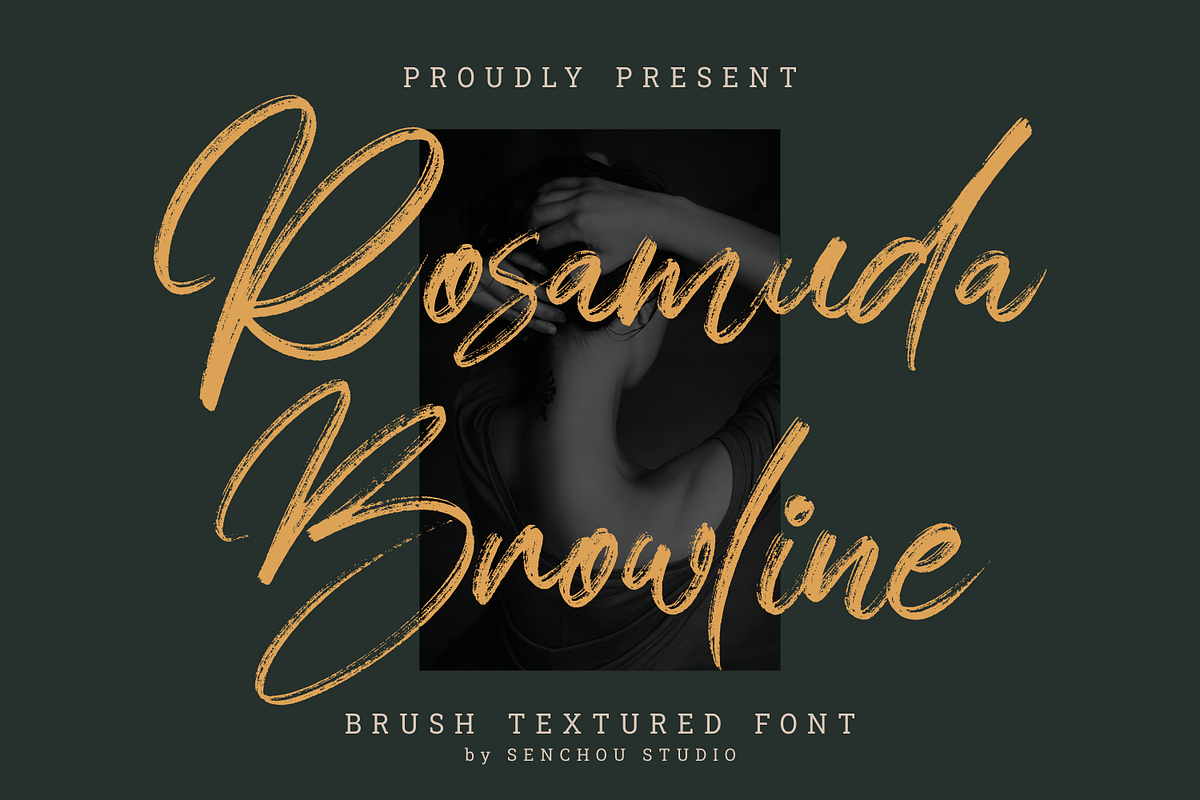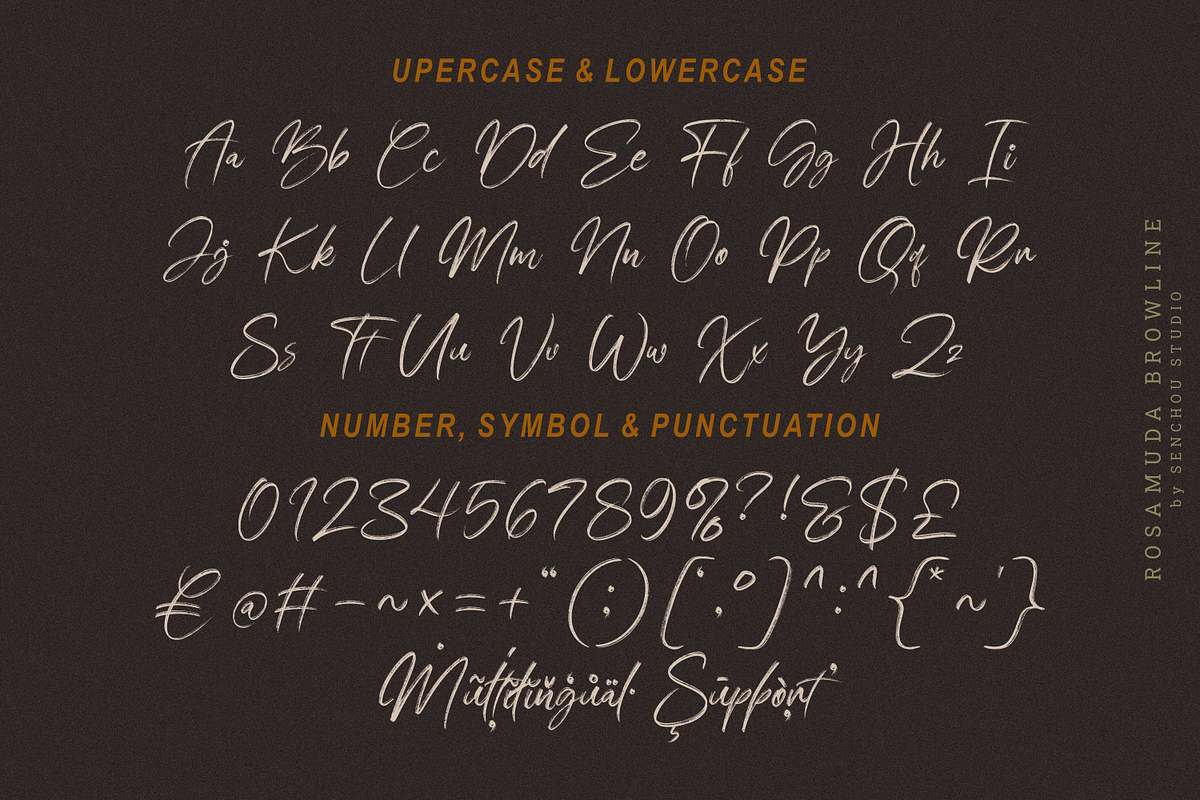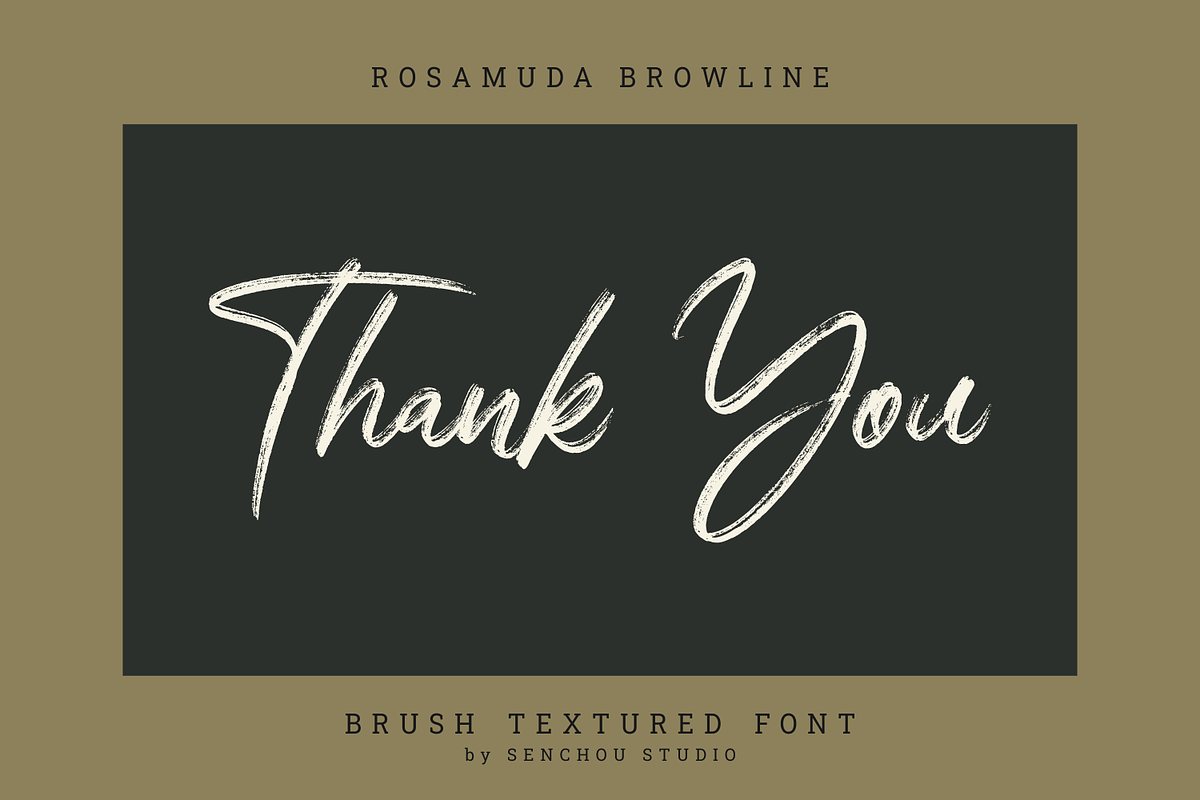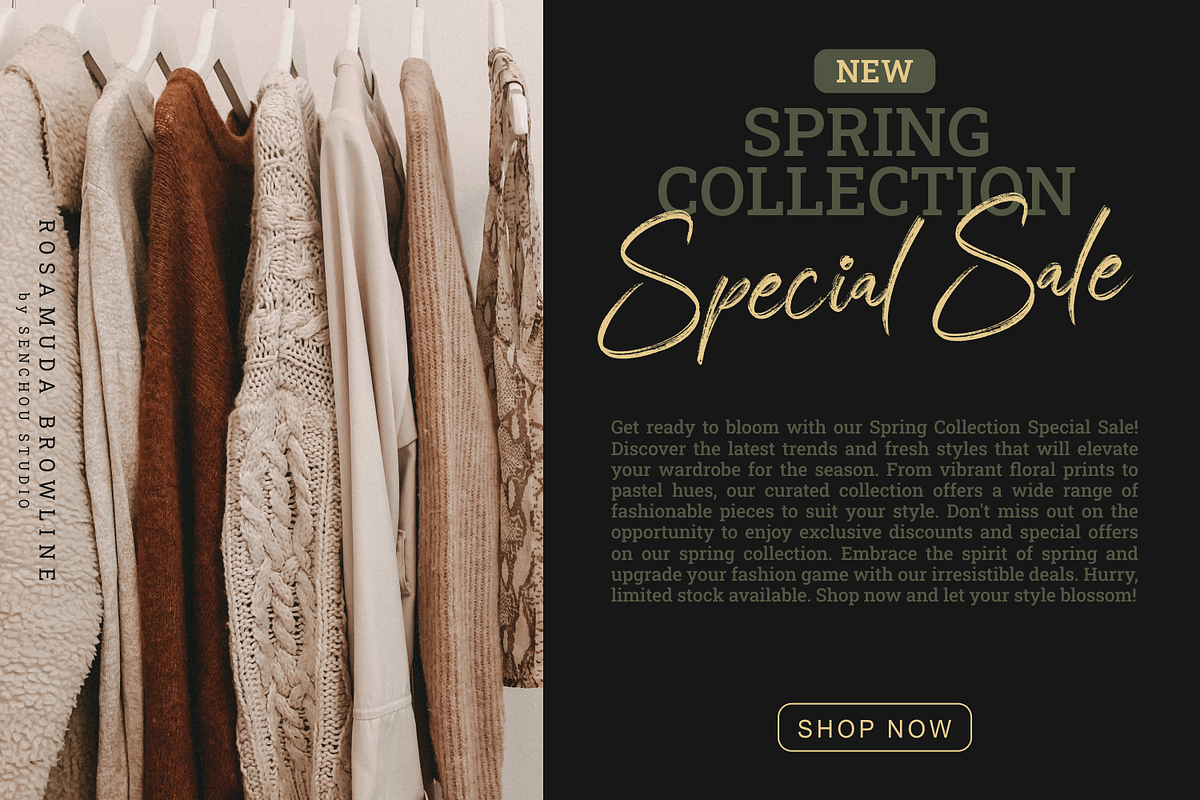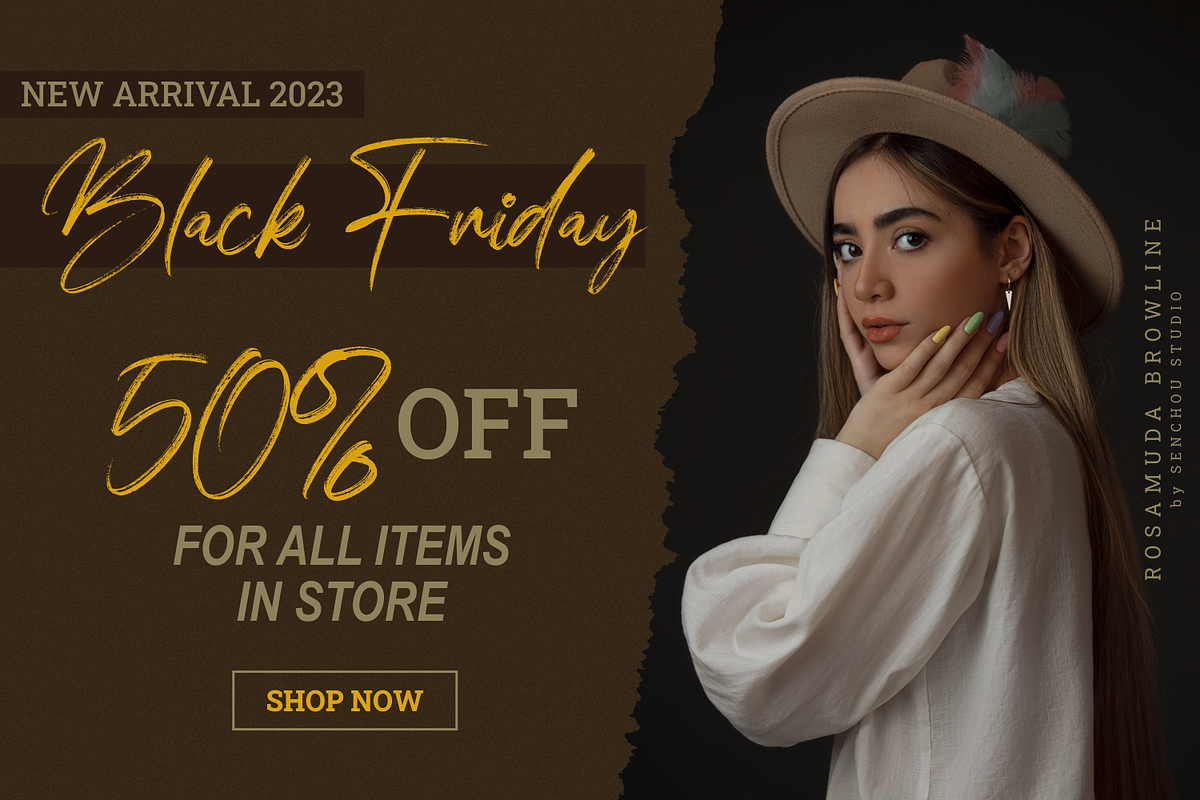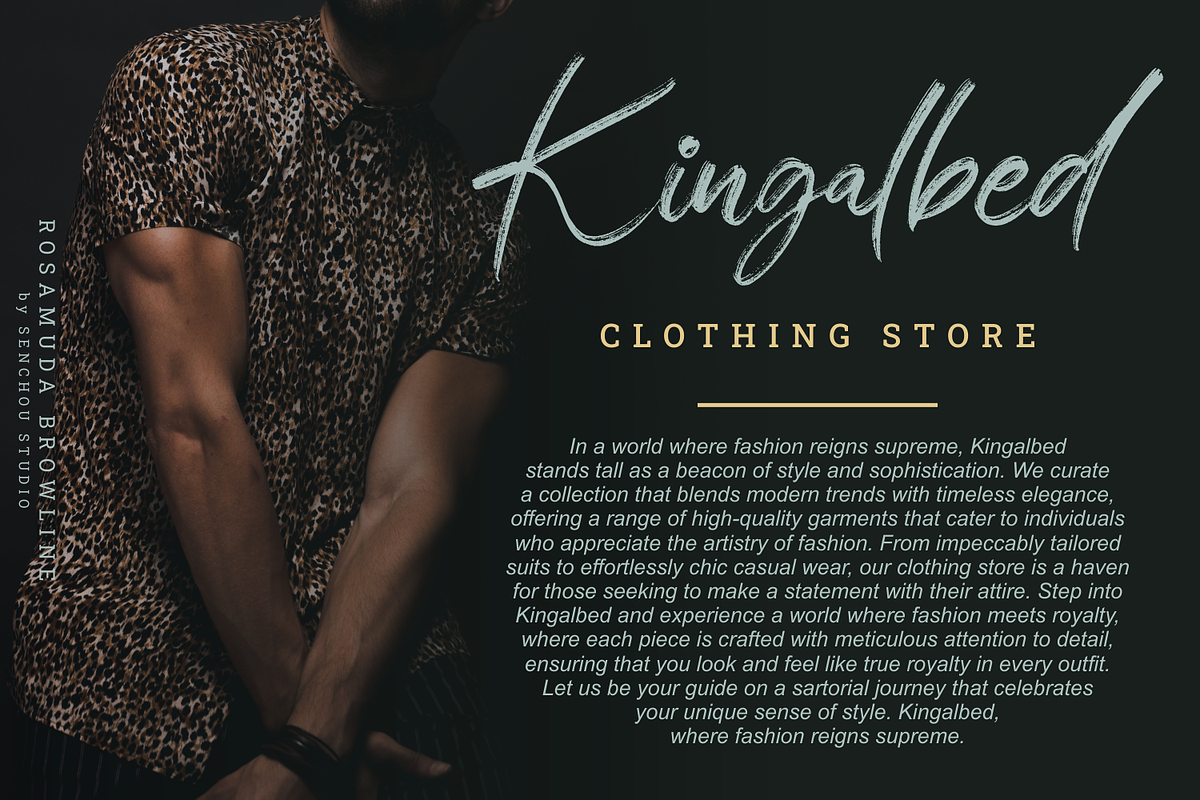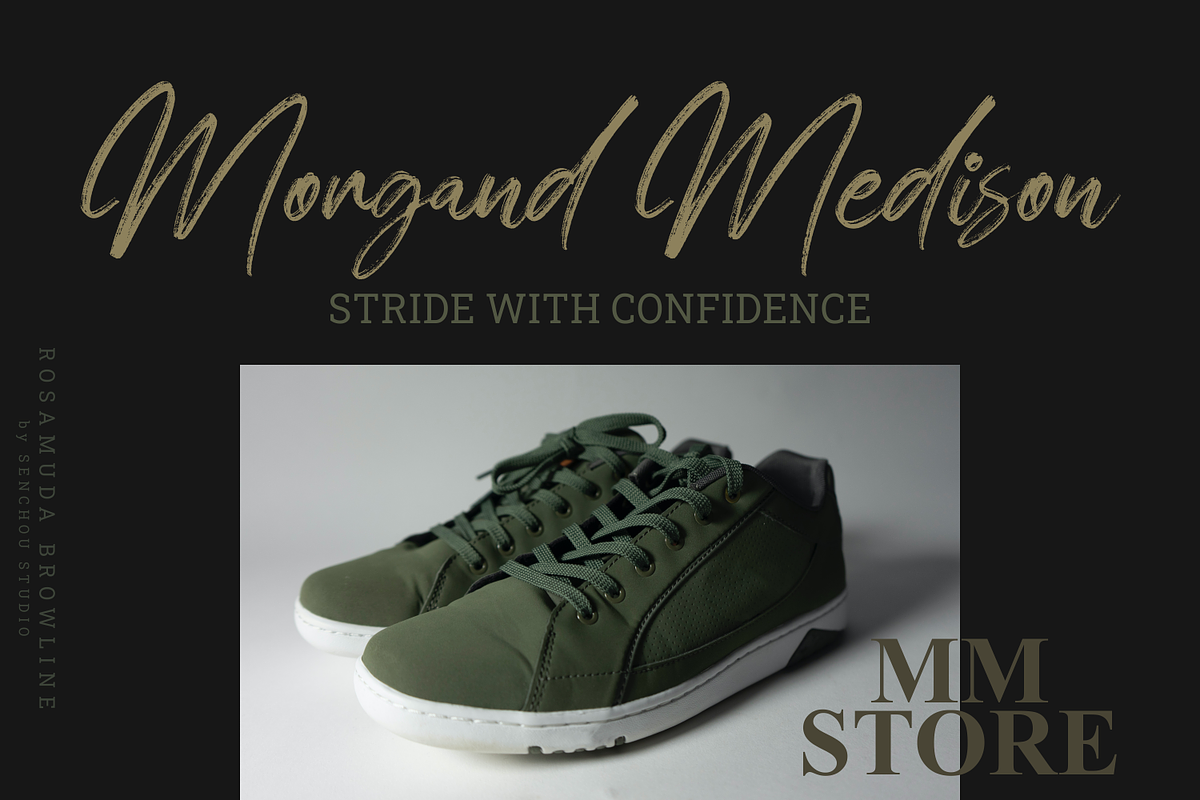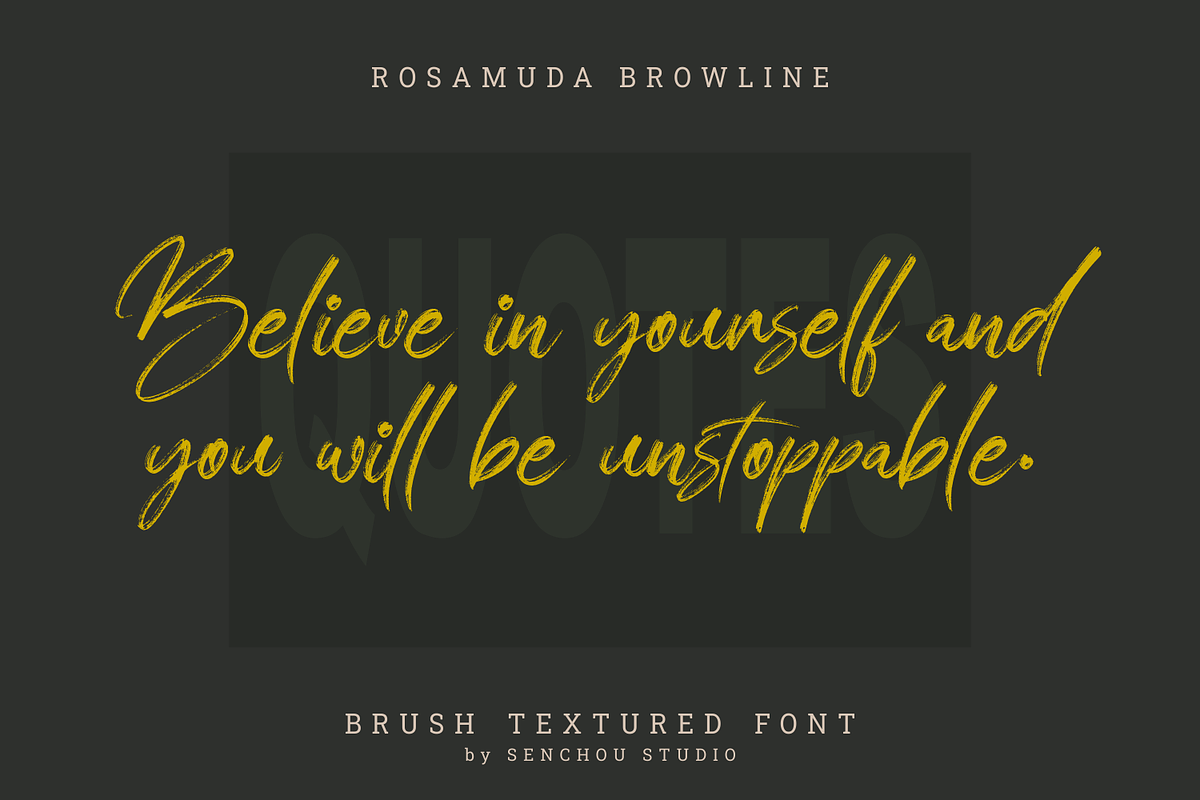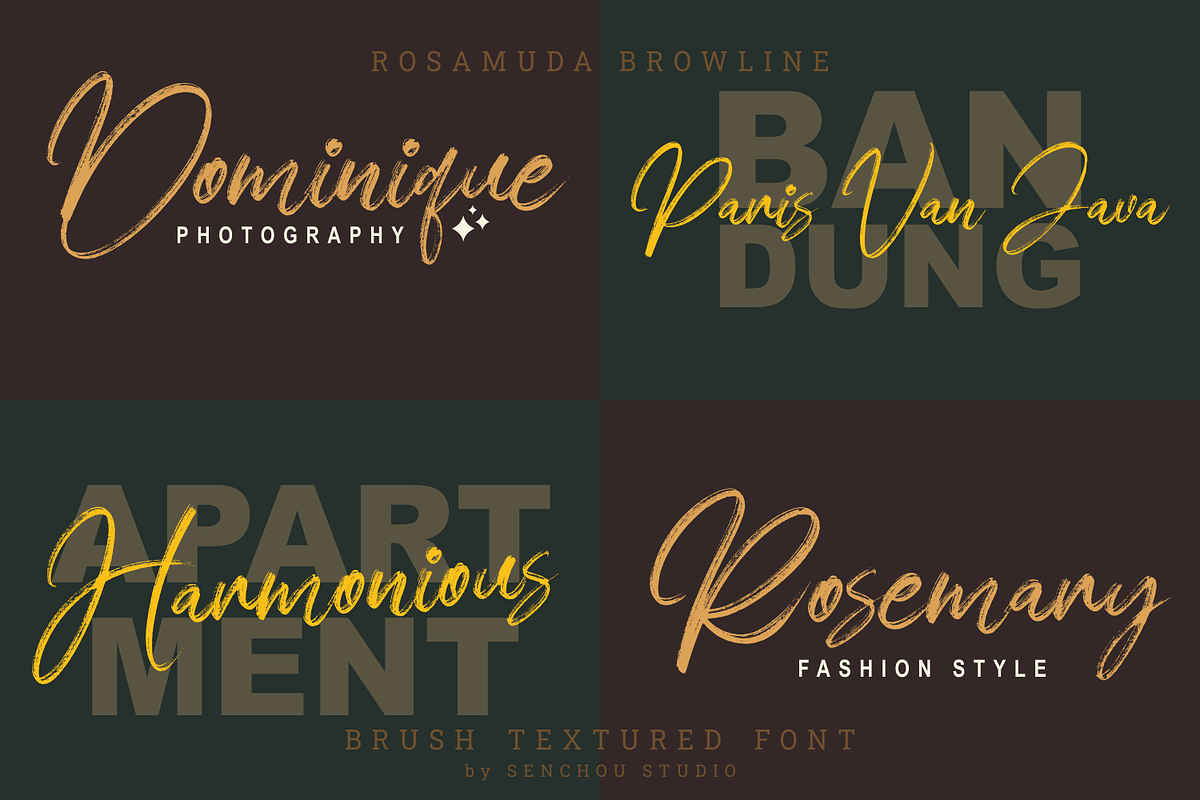
Rosamuda Browline
Font Rosamuda Browline is a sophisticated and captivating typeface that effortlessly combines the elements of brush textured font and hand lettering style. With its refined design and timeless appeal, this font exudes class and elegance in every stroke. The carefully crafted brush textures add a touch of authenticity and depth to the letterforms, creating a visually stunning effect. Whether used for logo designs, branding materials, or stylish invitations, Rosamuda Browline is sure to make a lasting impression. Its versatility and distinctive charm make it a perfect choice for those seeking a font that embodies both professionalism and artistic flair.